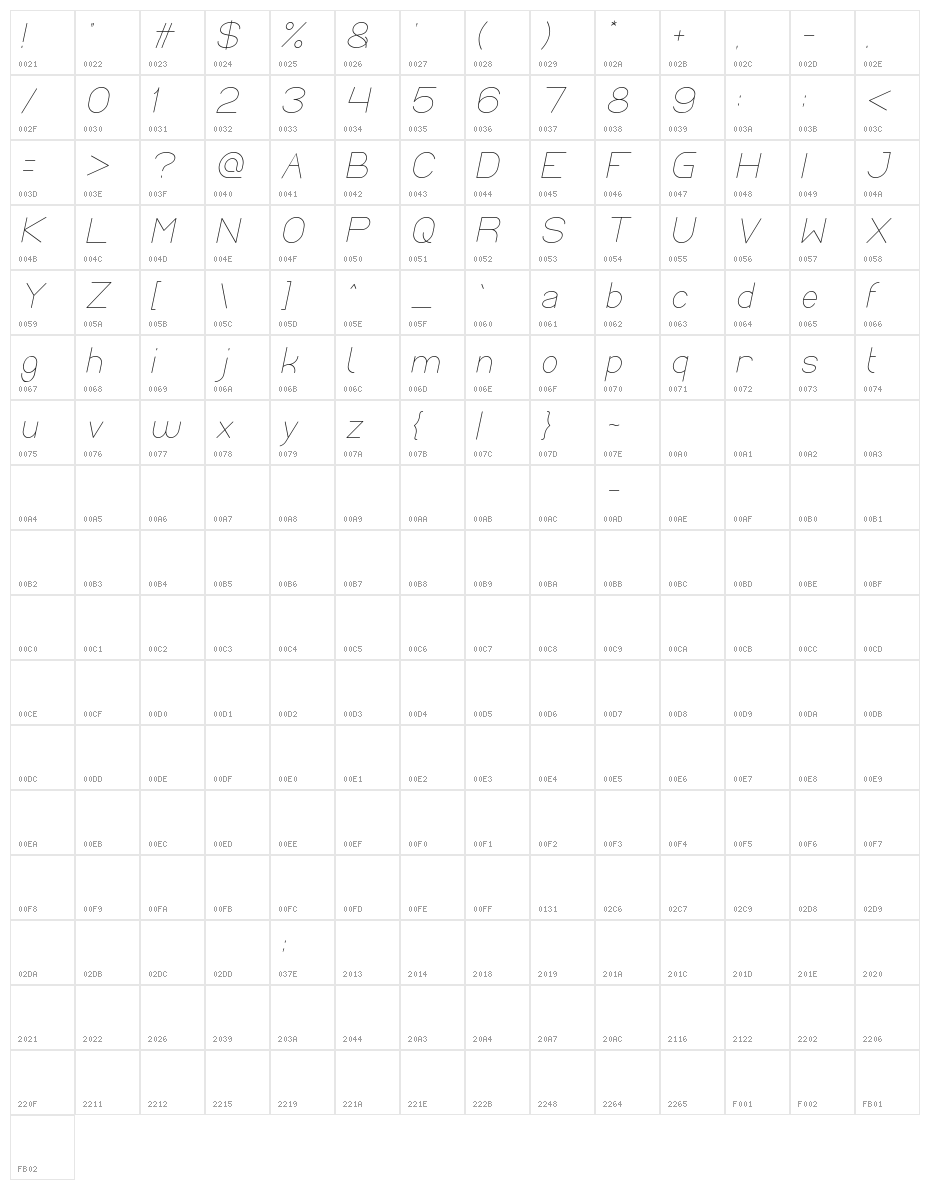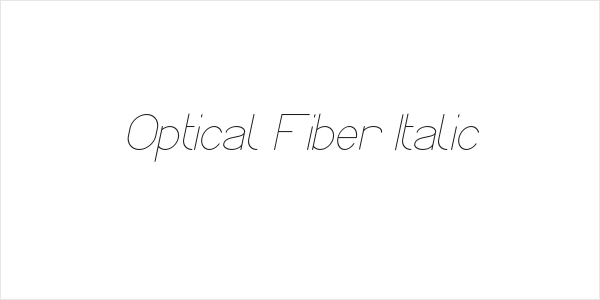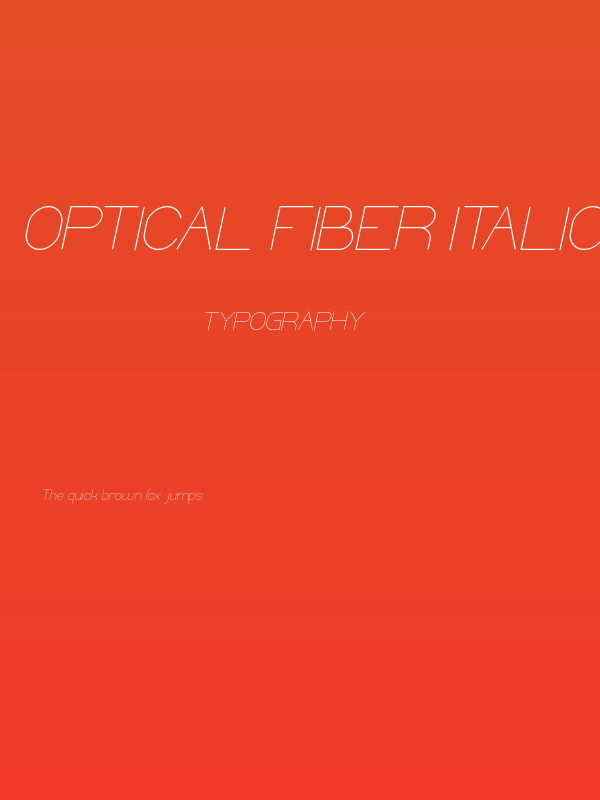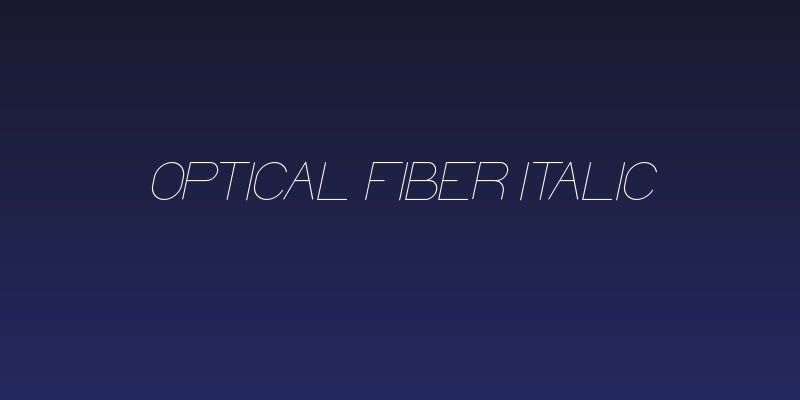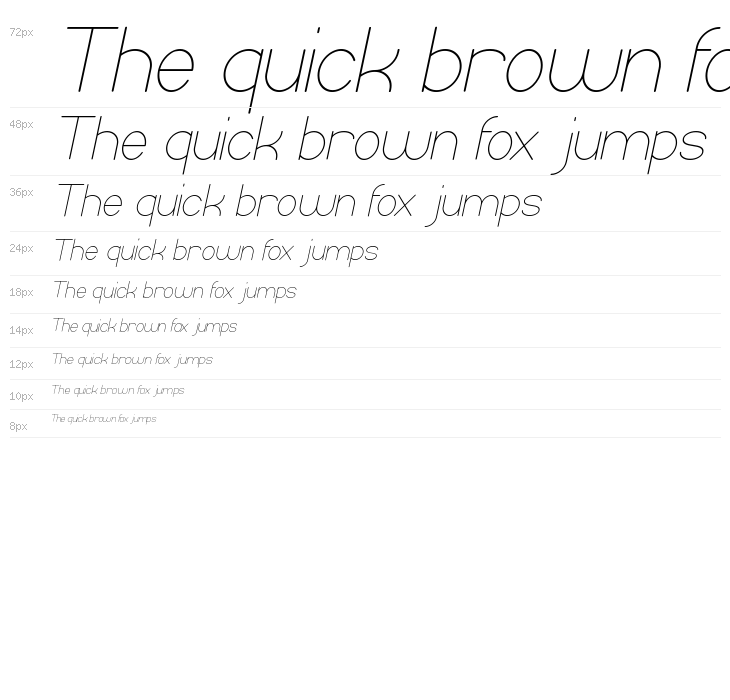
Optical Fiber Italic Font
Optical Fiber Italic Description
This font features a sleek, modern design with a distinct italic slant, giving it a sense of movement and elegance. The characters are composed of thin, consistent strokes that maintain a uniform width throughout, contributing to a clean and minimalist aesthetic. The uppercase and lowercase letters are well-proportioned, with a slight curvature that adds a touch of sophistication. The numerals and special characters are designed to complement the alphabet, maintaining the same thin stroke and italic style. This font's airy and open design makes it highly legible, even at smaller sizes.
| Proposed Projects | Ideal for modern branding, tech-related projects, sleek editorial designs, and minimalist websites. |